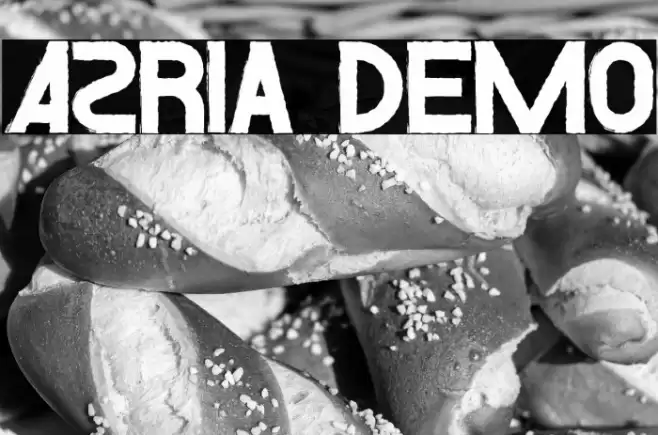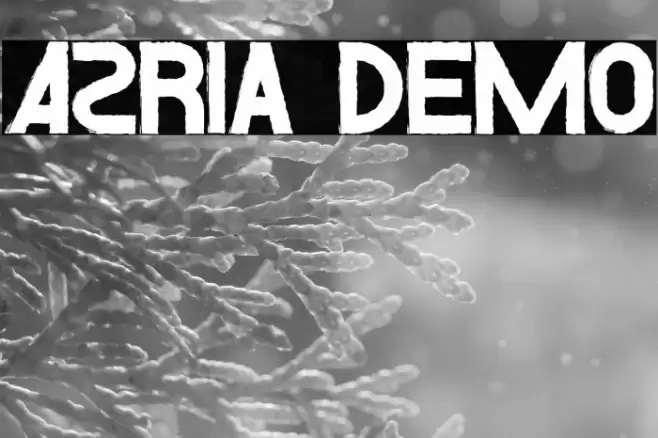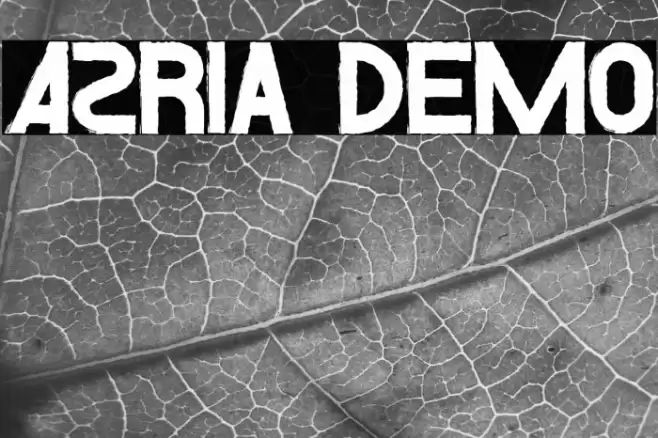
Azria Demo Font
Azria Demo Description
This font features a bold and rugged style with a distressed texture that gives it a unique, handcrafted appearance. The uppercase letters are prominent and impactful, while the lowercase letters maintain the same boldness, ensuring consistency across the typeface. The numbers and special characters follow the same design ethos, making them suitable for various creative applications. The font's overall appearance suggests a vintage or retro feel, with a touch of modernity due to its clean lines and structured form.
A bold, distressed font with a vintage yet modern appeal from Uncategorized fonts.
- Proposed Projects: Ideal for branding, posters, and any design work that requires a strong, eye-catching typeface with a vintage touch.
- Overall Style: Vintage, Modern